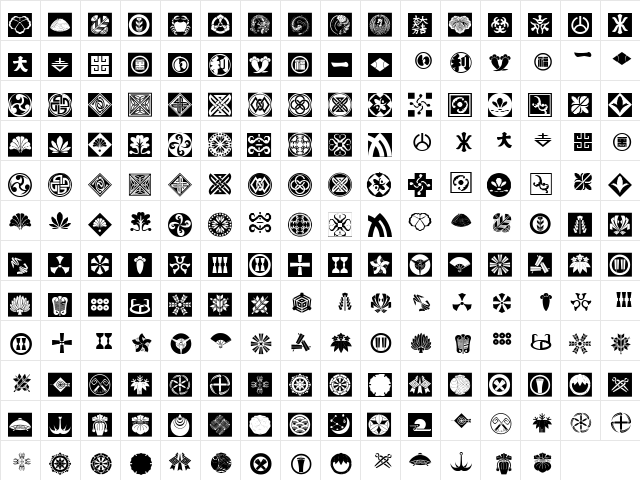
Orient Patterns Regular
Design Context for Orient Patterns Typeface
Orient Patterns is a composed and adaptable typeface that performs quietly and consistently across a wide range of design contexts.